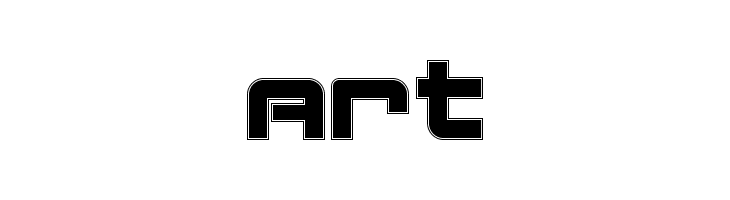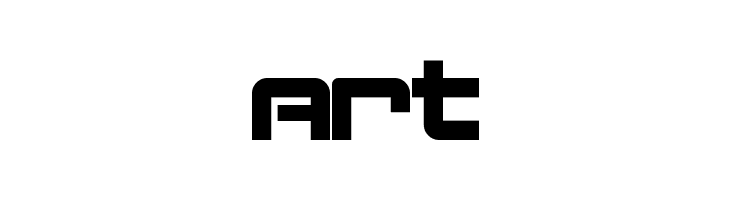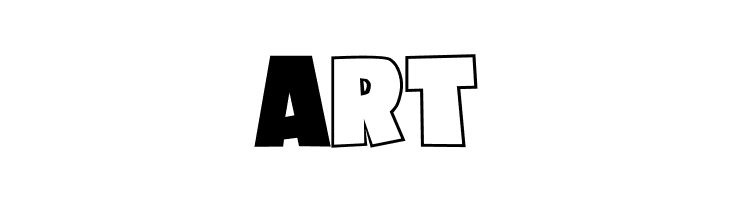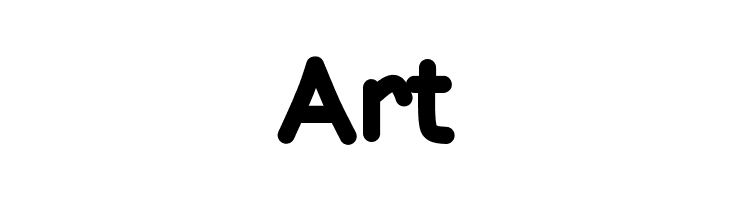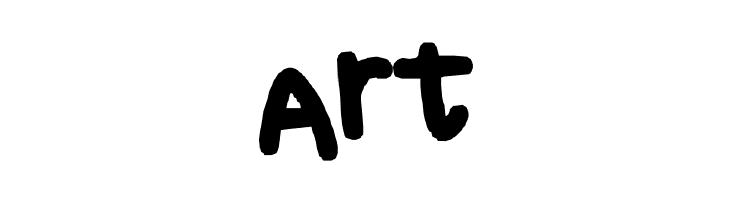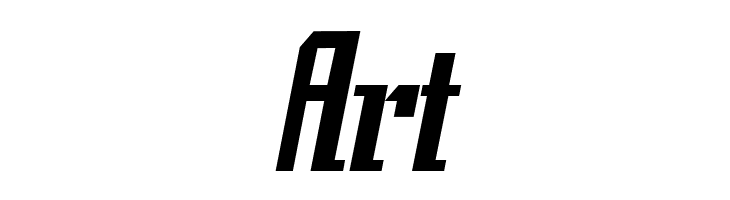
A playful and artistic font with bold, rounded shapes and whimsical loops.
A bold, playful font with rounded edges and a cohesive, friendly appearance.
A bold, angular font with a dynamic slant and strong presence.
A playful, bold font with rounded, thick strokes and a friendly appearance.
A bold, playful font with a hand-drawn, distressed texture.
A bold, geometric font with a modern, outlined style.